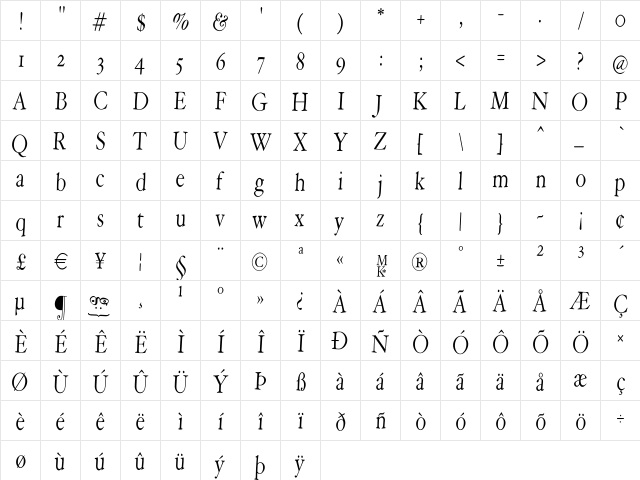
HoffmanFL Regular
Design Context for HoffmanFL Typeface
HoffmanFL offers clean, dependable letterforms without strong stylistic allegiance, making it a practical choice for designers who need flexibility.
Pro Tip: Use HoffmanFL in both headline and body roles to test its range before committing to a single application.